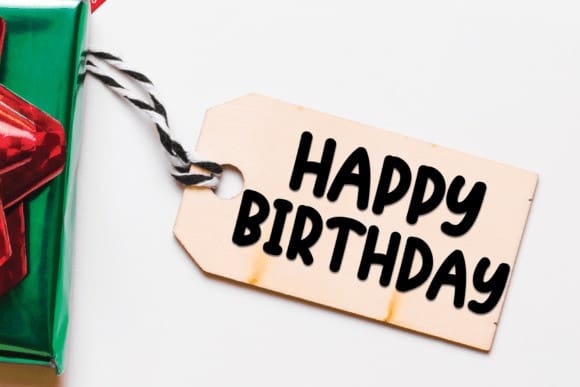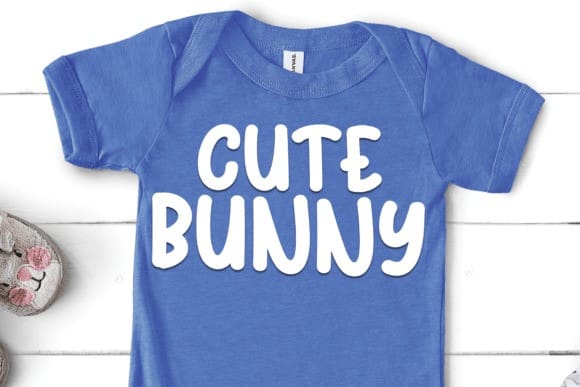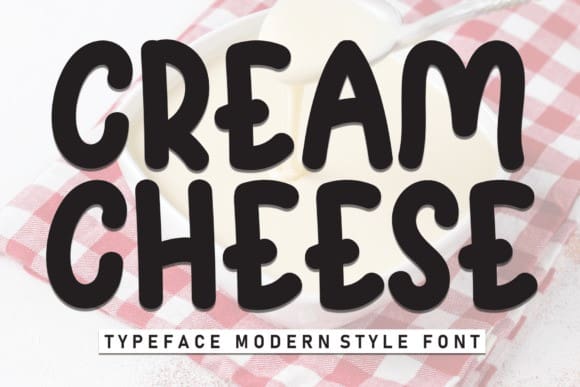
Cream Cheese Typeface
Cream Cheese Typeface is a sweet and friendly handwritten display font. Fresh and casual, this font is ideal for writing wedding invitations, cards, or any other design that might need a lovely touch.